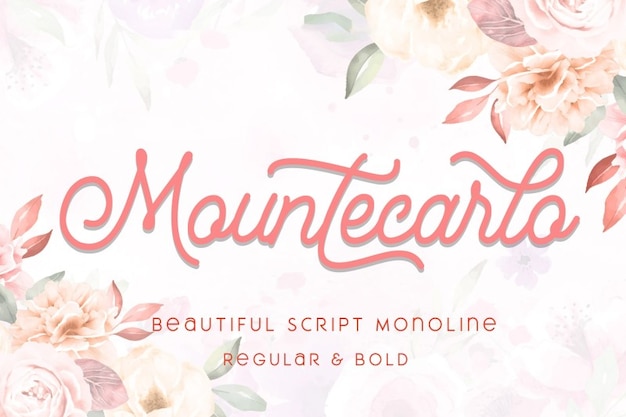
Mountecarlo
Mountecarlo Font
Mountecarlo is a delicate vintage font with a sofisticated design. Its style makes of this typeface a must have! Download and use it to take your projects to the next level.